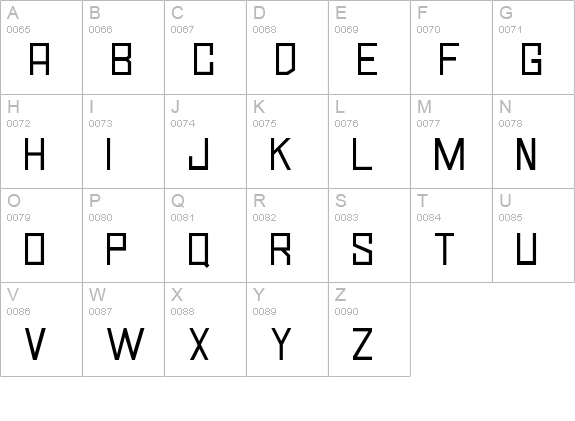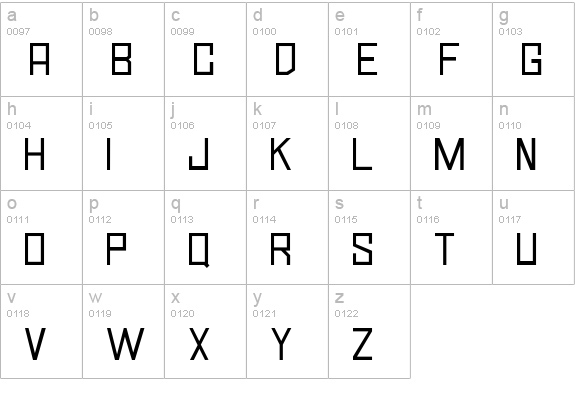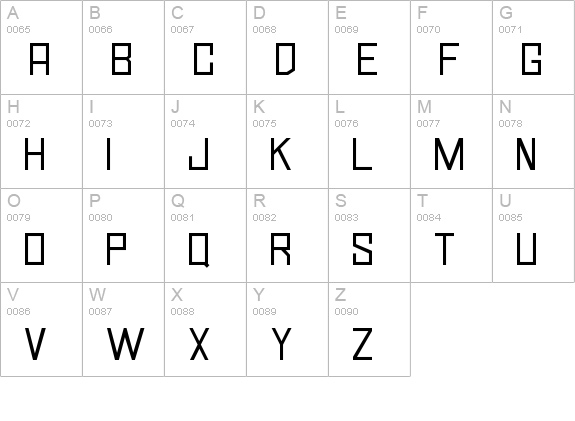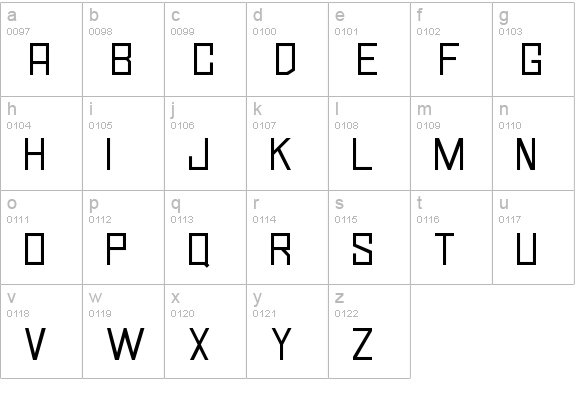
Simply Square JL Font Details
Introducing Simply Square JL, a captivating font that effortlessly combines elegance and modernity. This remarkable typeface is perfect for adding a touch of sophistication to any design project. With its clean lines and bold presence, Simply Square JL is sure to make a lasting impression. Featuring a distinctive square-shaped design, this font offers a unique and contemporary twist on traditional letterforms. Each character is meticulously crafted to provide the perfect balance between simplicity and style. The sharp corners and refined details give the font a sleek and polished look, making it an ideal choice for both print and digital mediums. One of the best aspects of Simply Square JL is that it is free. Yes, you heard it right! This incredible font is freely available to download at FontsMarket.com. Now, you can enhance your creations with this exceptional font without any hassle. Whether you're a professional designer or a passionate hobbyist, Simply Square JL offers a valuable addition to your font collection. Whether you're designing a logo, creating eye-catching headlines, or crafting striking typography for an advertisement, Simply Square JL has got you covered. Its versatility allows it to shine in various design contexts, making it an excellent choice for a wide range of projects. From sleek and minimalist layouts to bold and vibrant compositions, this font adapts effortlessly to your creative vision. So why wait? Embrace the elegance and versatility of Simply Square JL today. Download it for free at FontsMarket.com and elevate your designs to new heights. With its modern charm and timeless appeal, this font is sure to captivate your audience and leave a lasting impression. Don't miss out on this exceptional opportunity to add a touch of sophistication to your design arsenal. Get Simply Square JL now and unlock a world of possibilities.